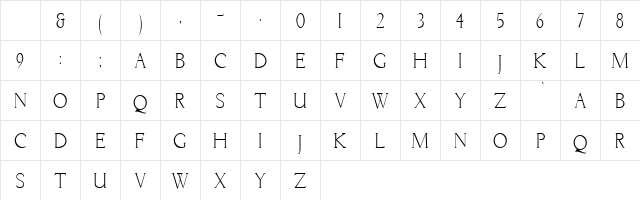
Complete ZoysiaCaps Normal glyph index. Displaying only characters natively supported by ZoysiaCaps Normal font.
ZoysiaCaps is a composed and adaptable typeface that performs quietly and consistently across a wide range of design contexts.